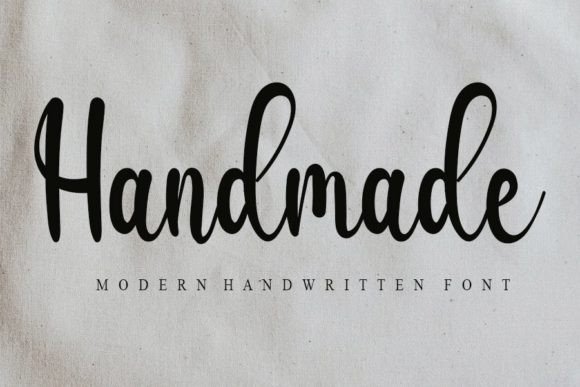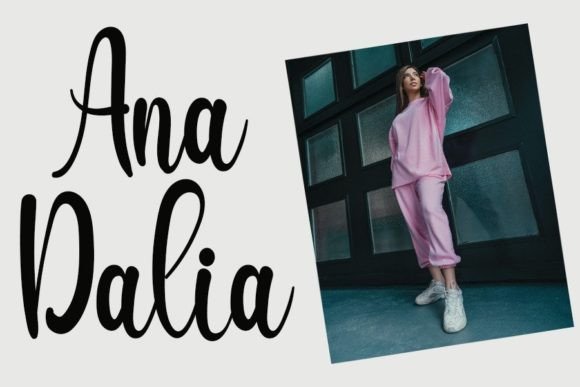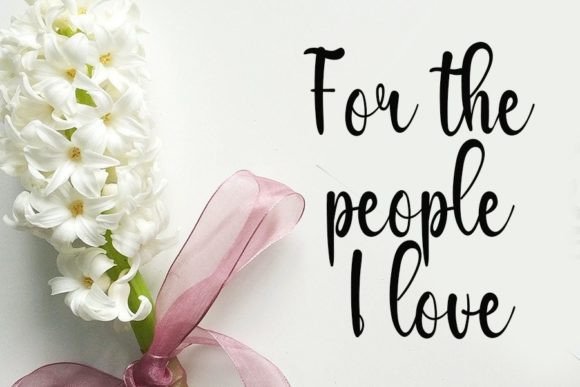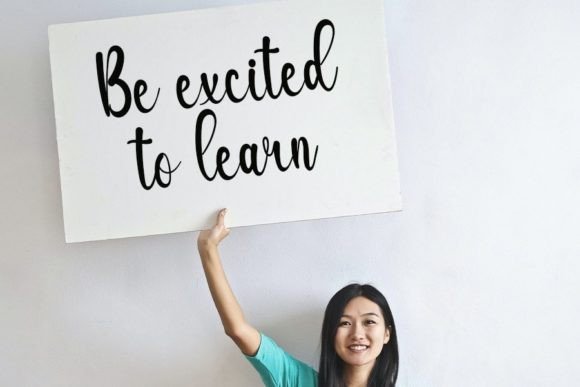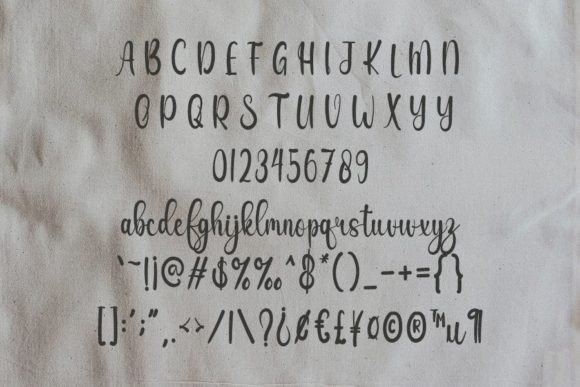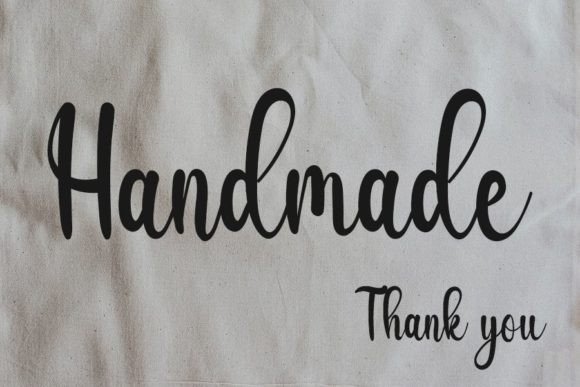
“Handmade: Where Friendliness Meets Contemporary Elegance in Handwritten Artistry
Introducing Handmade, a font crafted with care to become your true favorite in the world of typography. Its friendly demeanor, combined with classy calligraphic influences, creates a delightful blend of tradition and modernity. Carefully designed to feel both contemporary and fresh, Handmade adds a touch of warmth and personality to your creative projects, making them truly outstanding.
The charm of Handmade lies in its friendly handwritten style, inviting viewers with open arms. Its flowing strokes and carefully crafted letterforms maintain a sense of class and elegance, making it a versatile choice for a wide range of design applications. Whether you’re working on invitations, greeting cards, branding materials, social media posts, or any other creative endeavor, Handmade infuses your projects with a unique character that captivates the observer.
Imagine your invitations adorned with Handmade’s inviting letterforms, setting the tone for a warm and welcoming event. Picture your branding materials showcasing the blend of tradition and modernity, leaving a lasting impression on your audience. With Handmade, your designs become more than just visuals; they become genuine expressions of friendliness and creativity.
One of Handmade’s standout features is its ability to maintain a balance between its calligraphic roots and contemporary aesthetics. It retains the timeless elegance of classic calligraphy while embracing a fresh and modern vibe, ensuring that your designs feel both familiar and innovative. This duality allows Handmade to stand out, making it a favorite choice among designers and enthusiasts alike.
Moreover, Handmade is more than just a font; it’s an experience. It embodies the essence of creativity and human touch, infusing your designs with a sense of authenticity. Its presence elevates your projects, turning them into heartfelt expressions that resonate with people on a personal level.
In a digital age where authenticity is valued, Handmade helps you make a genuine connection with your audience. It speaks the language of friendliness and contemporary elegance, resonating with those who appreciate the beauty of handwritten artistry. Whether you’re designing for personal moments or professional endeavors, Handmade becomes your trusted companion, guiding you toward design excellence.
So, why settle for ordinary when you can embrace the extraordinary with Handmade? Let this friendly handwritten font be the muse for your creative expressions, and watch as your projects come to life with warmth and charm. Let your creativity flow, and let Handmade be the brushstroke that paints your ideas into heartfelt masterpieces, leaving a lasting impression on the world.”